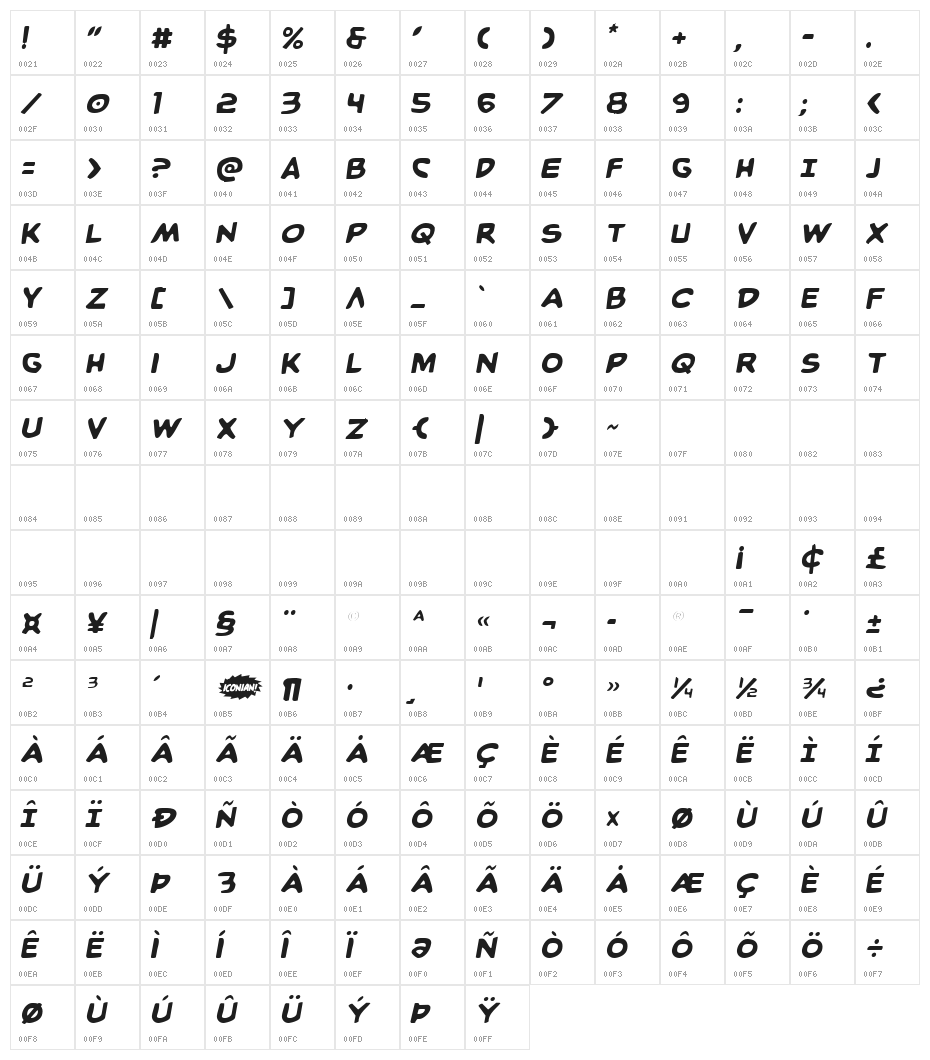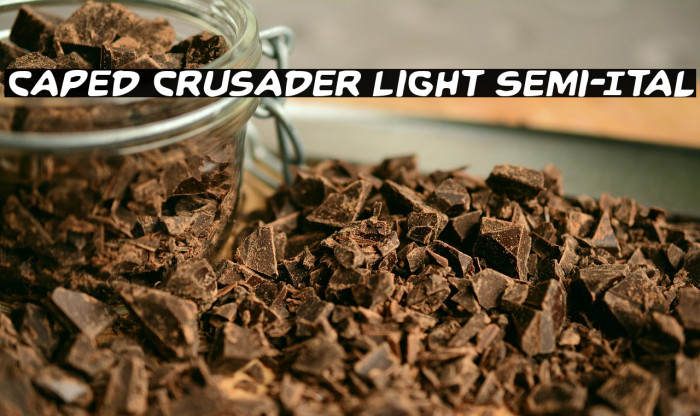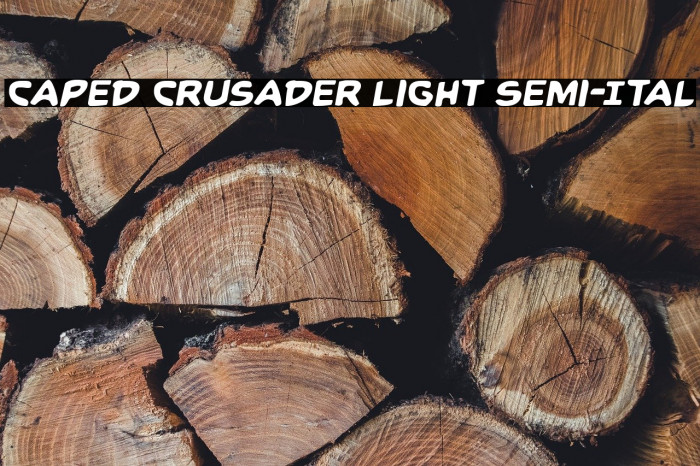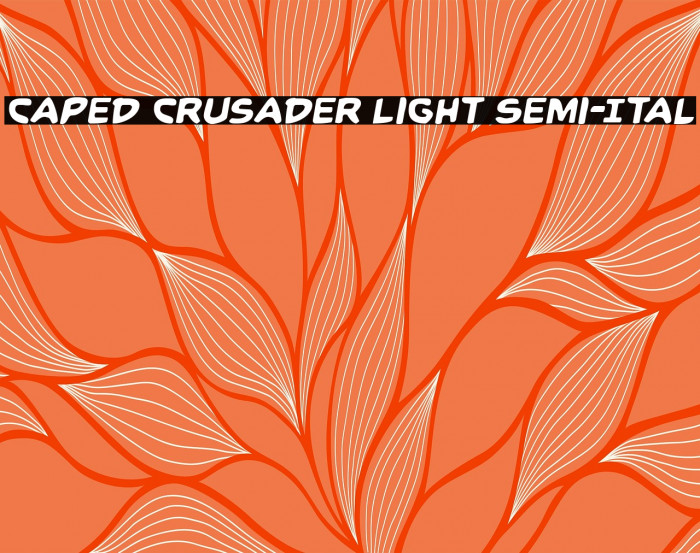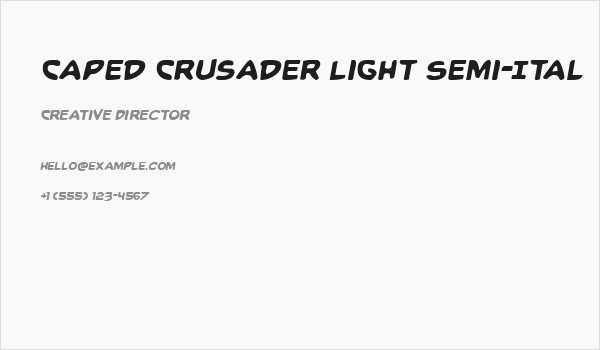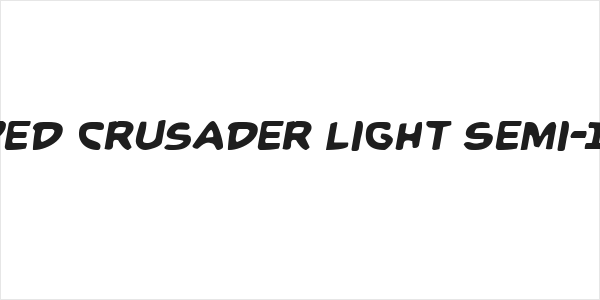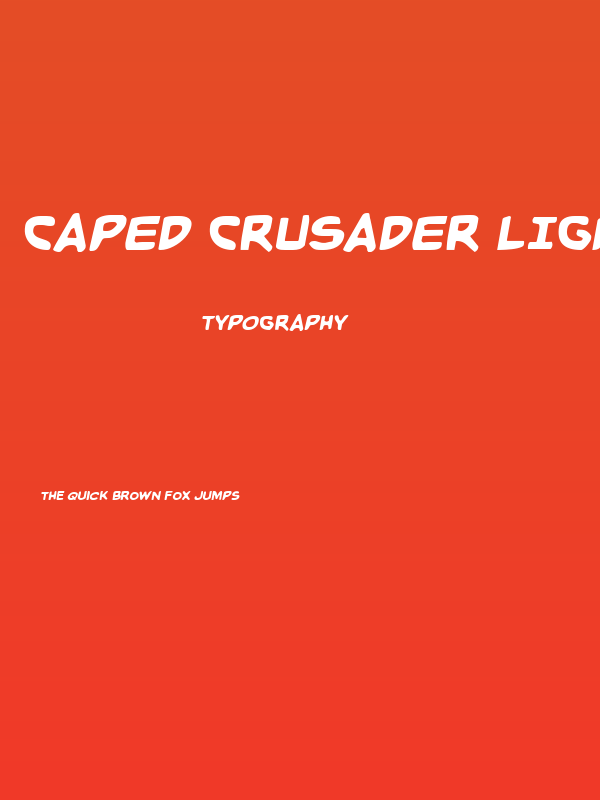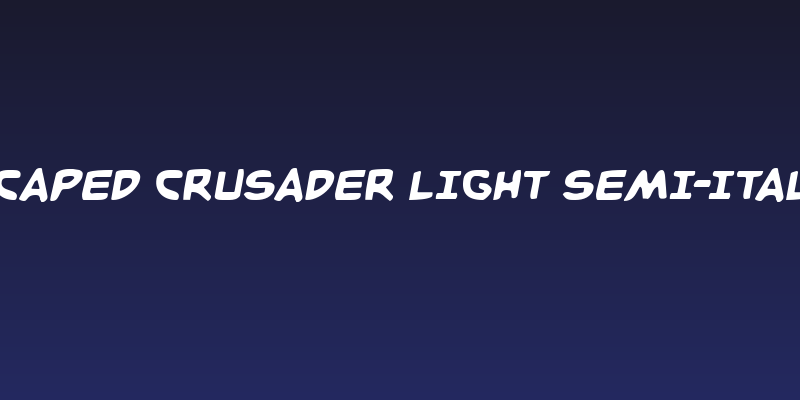
Caped Crusader Light Semi-Ital Font
Caped Crusader Light Semi-Ital Description
This font features a bold and dynamic style with a playful, comic-like appearance. The letters are slightly slanted, giving an energetic and informal feel. The strokes are thick and rounded, providing a sense of friendliness and approachability. The characters are well-spaced, ensuring readability while maintaining a cohesive look. The numbers and special characters follow the same design principles, making them consistent with the overall style. This font is ideal for projects that require a fun and engaging visual impact.
| Overall Style | Playful, Comic |
| Proposed Projects | Comic books, children's books, playful branding, posters, and informal invitations. |